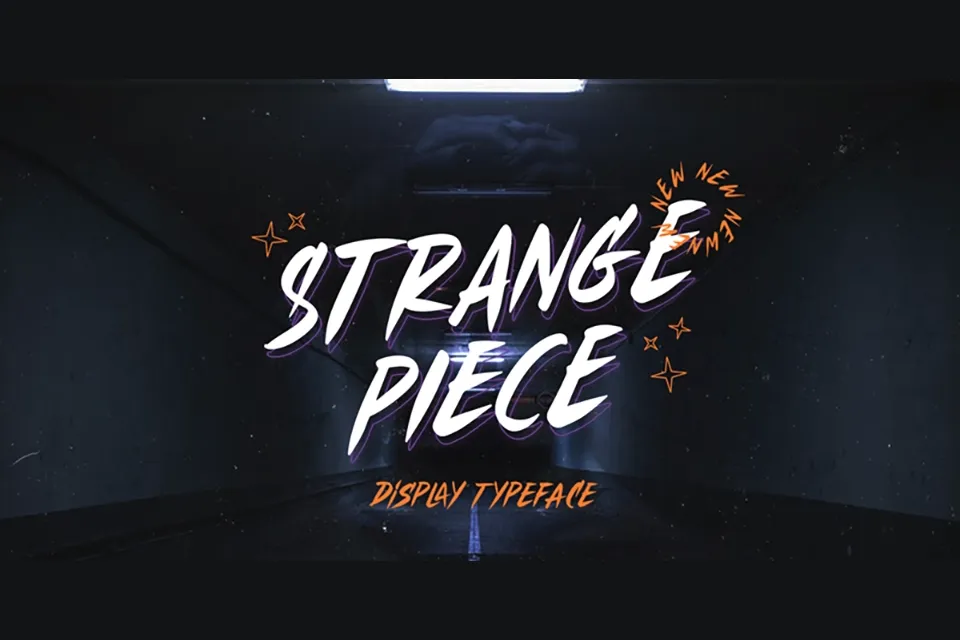
Strange Piece Font
Strange Piece Font is a modern and playful display typeface, purposely made for headlines, display, or logotype. This font is perfectly made to be applied to logos, labels, magazines, books, greeting/wedding cards, or any type of advertising project.